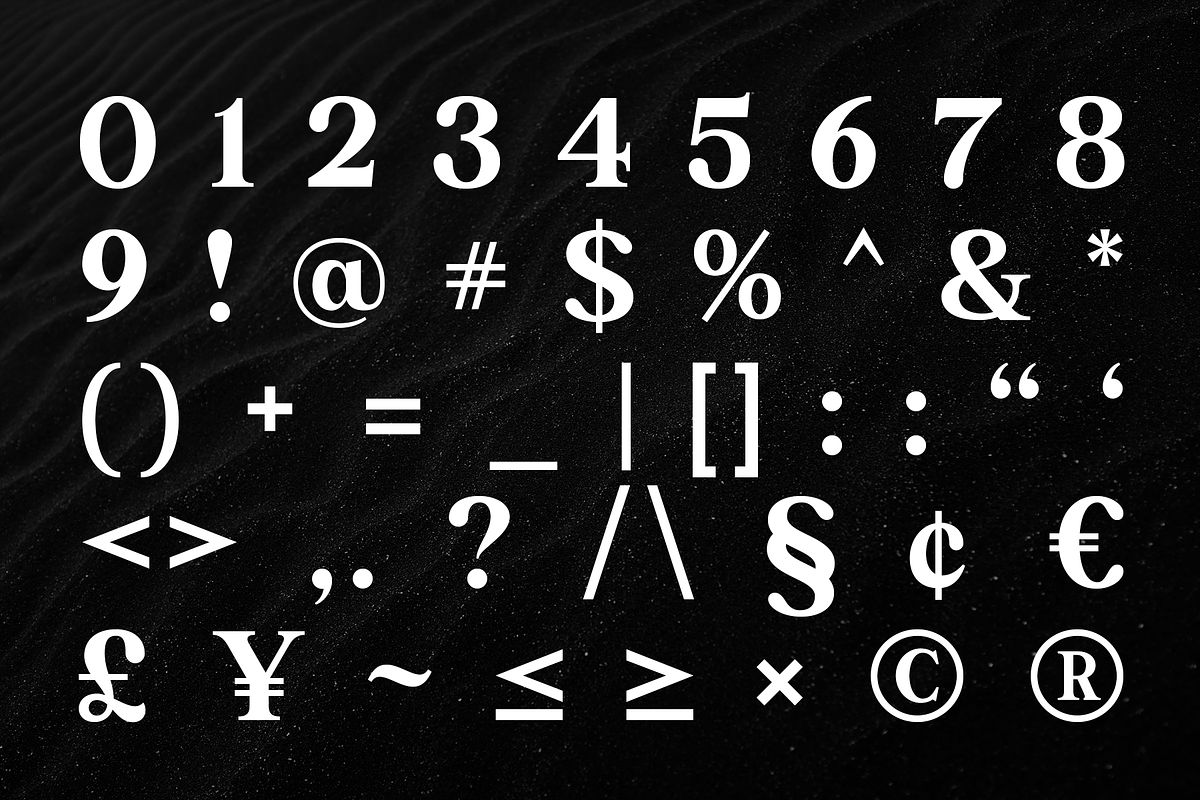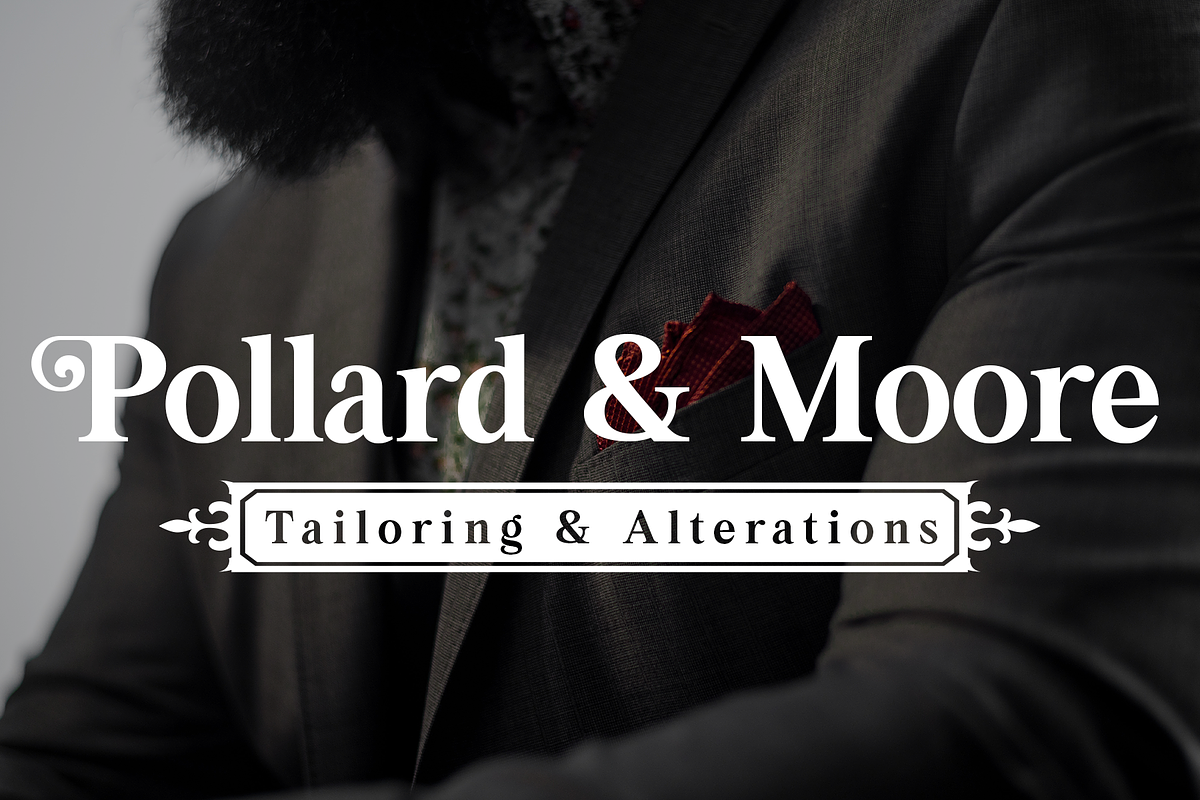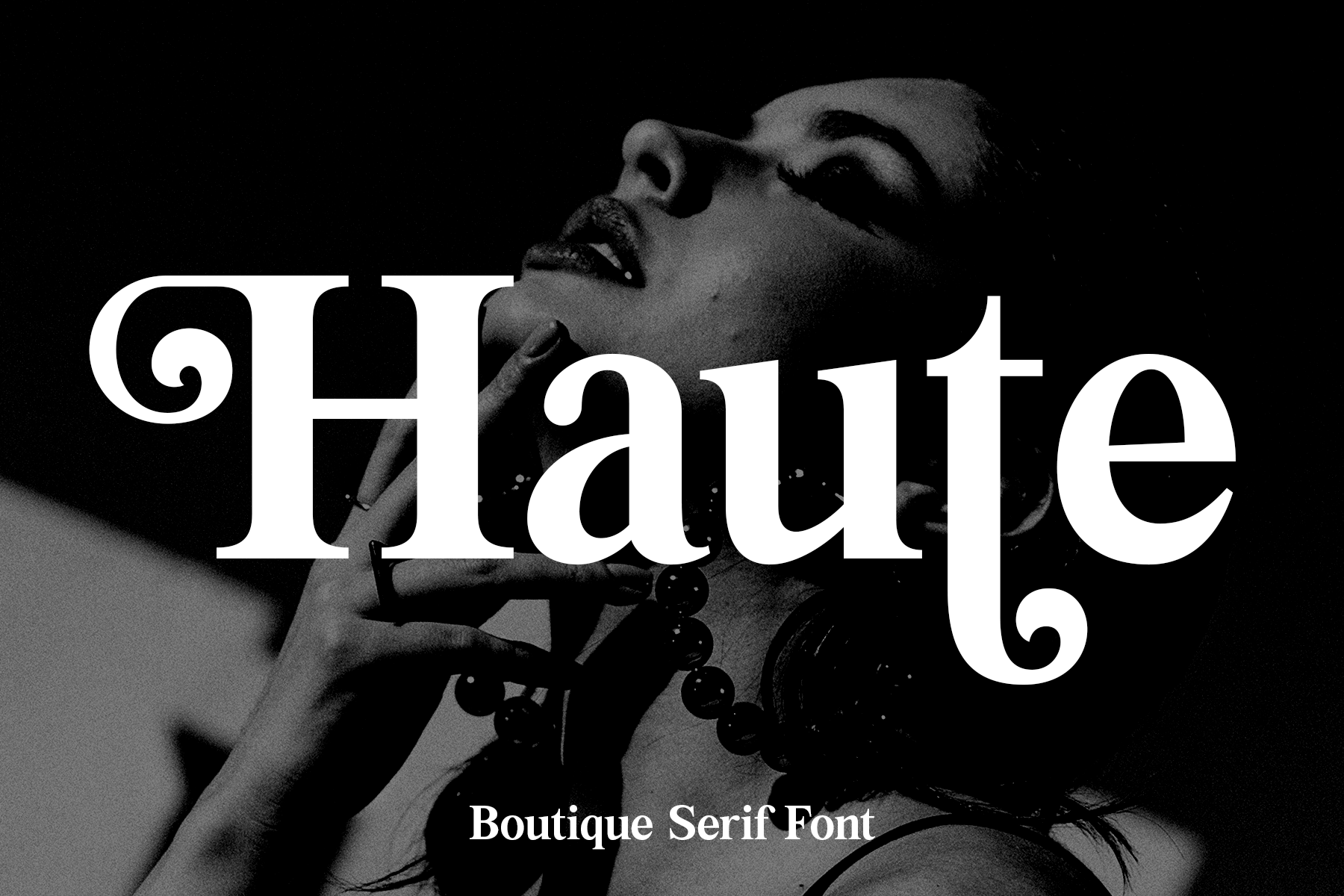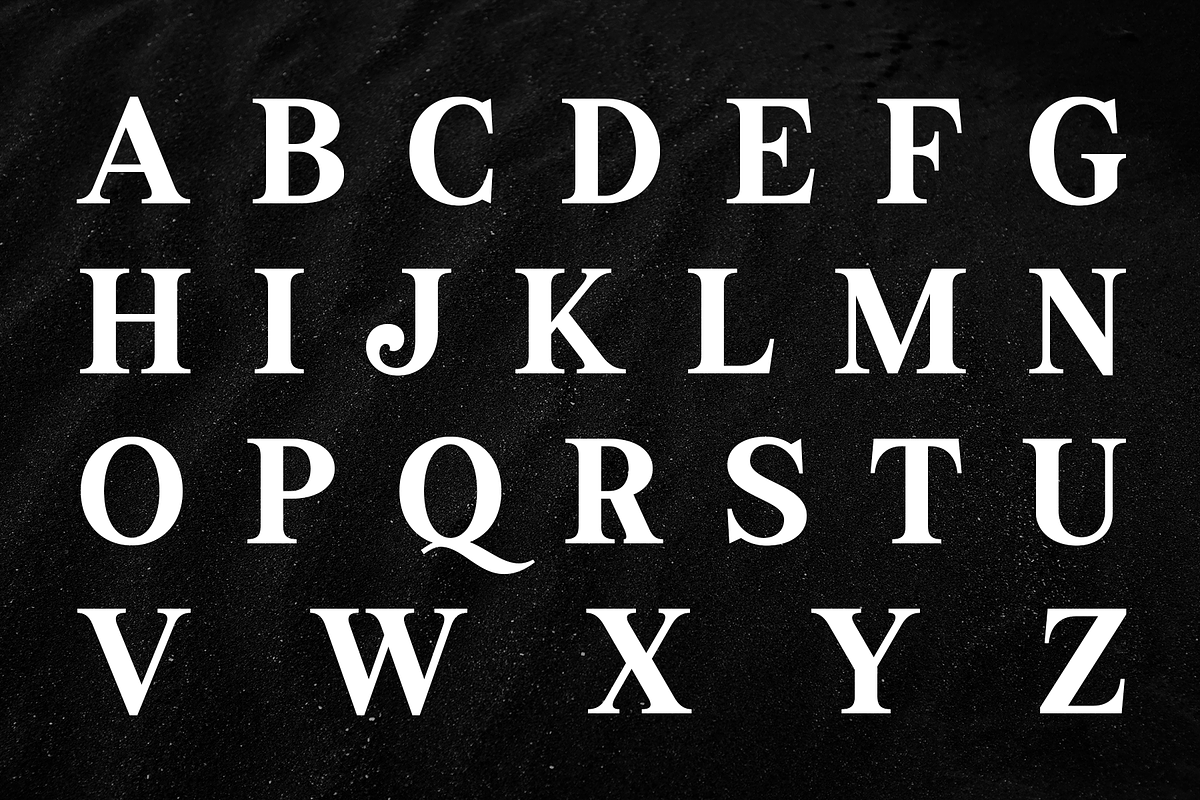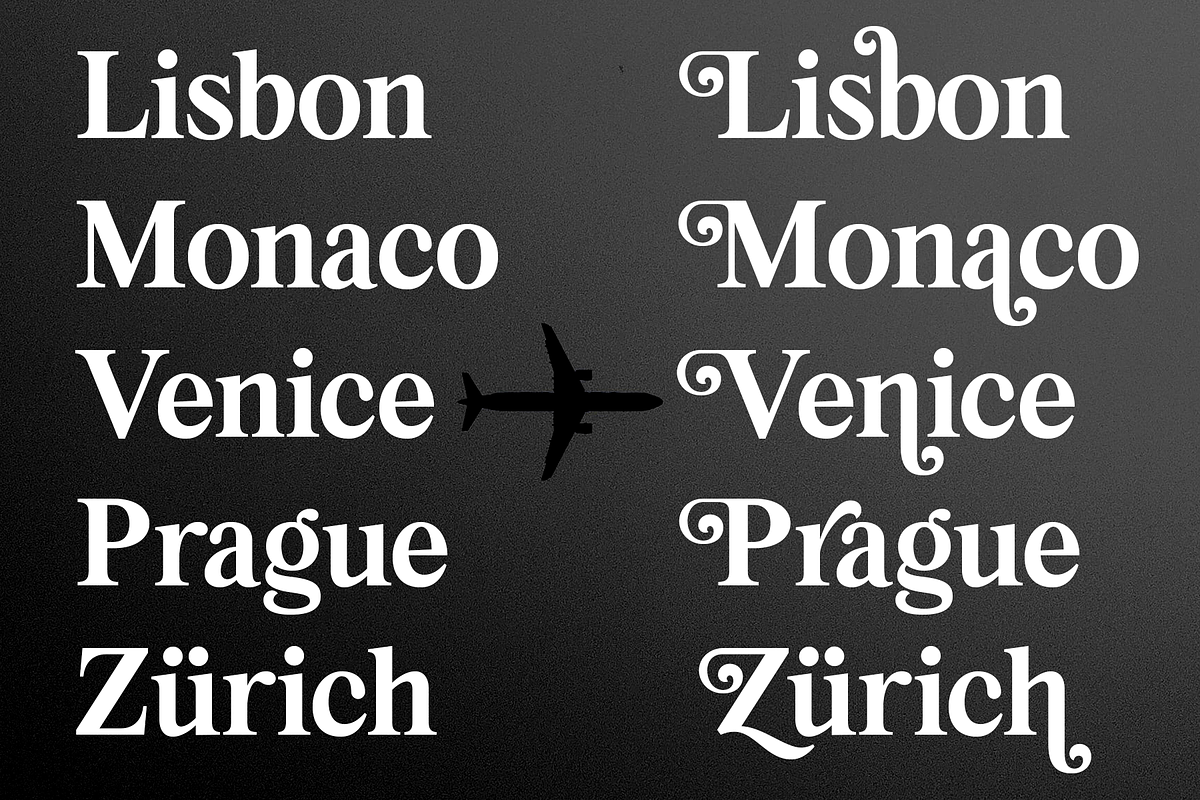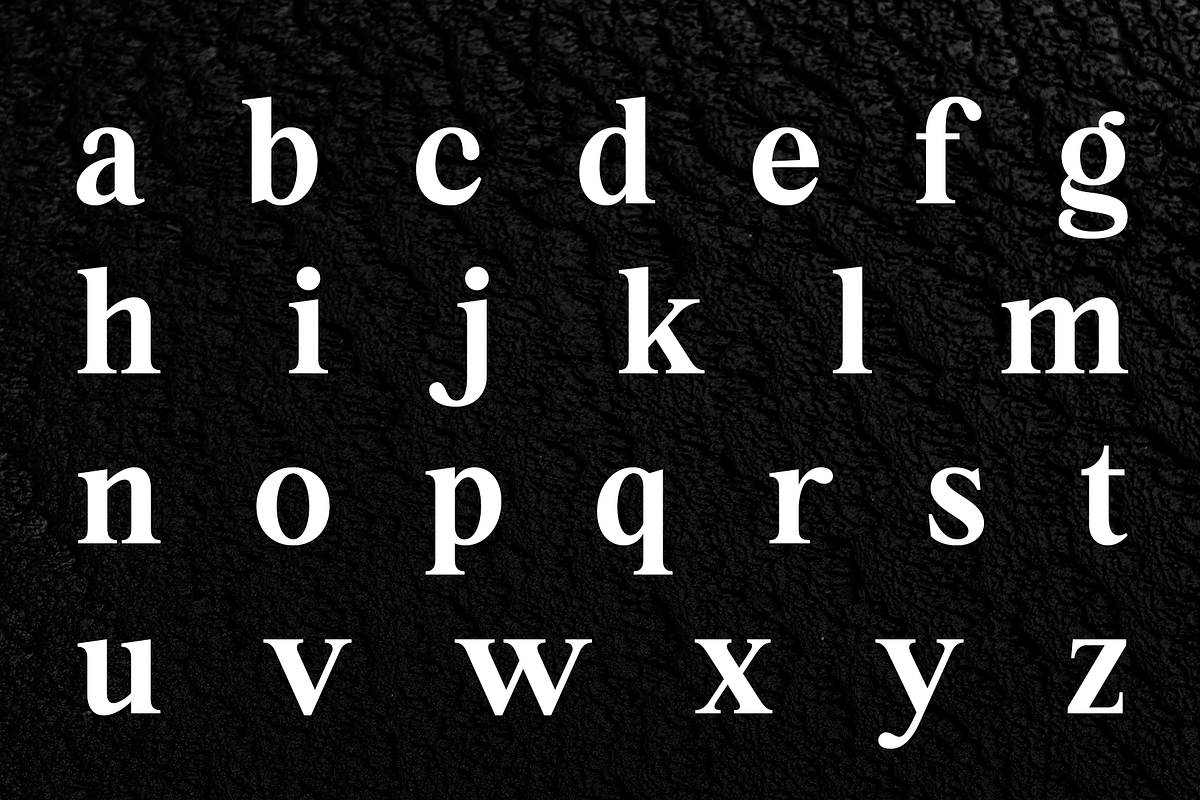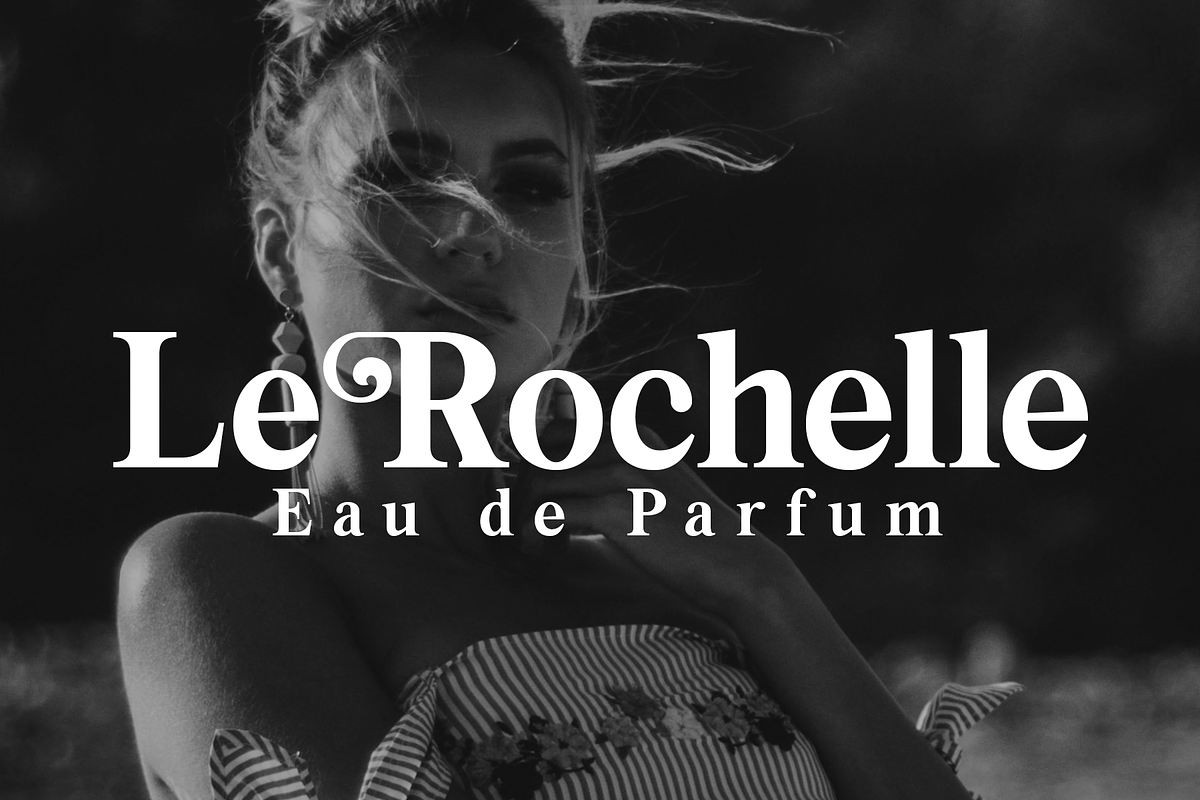
Haute - Boutique Serif Font
Haute is a high-fashion font that delivers a bold sophisticated punch to any design. This font features all standard characters you would expect, plus multilingual characters and a large selection of alternate capitals.
Use the alternates to create eye catching titles, logos, product packaging, editorial designs, advertisements & so much more!